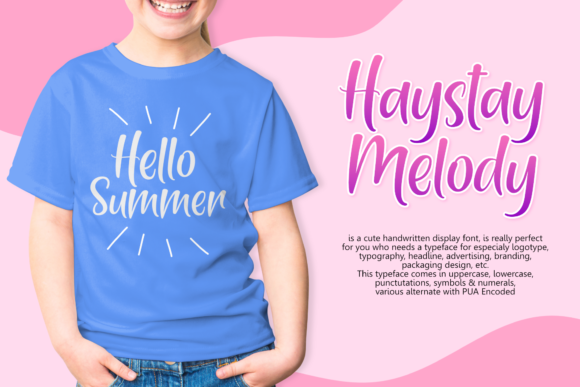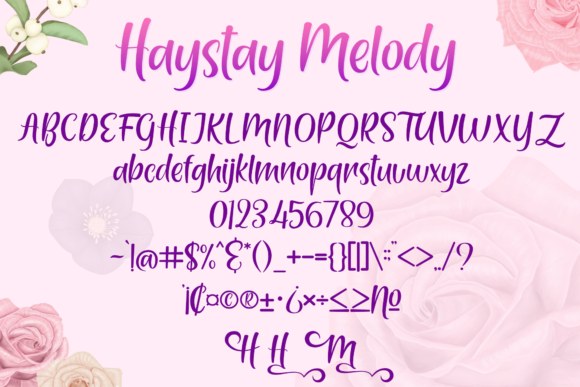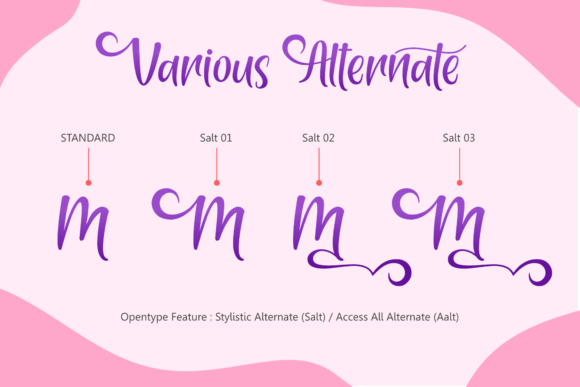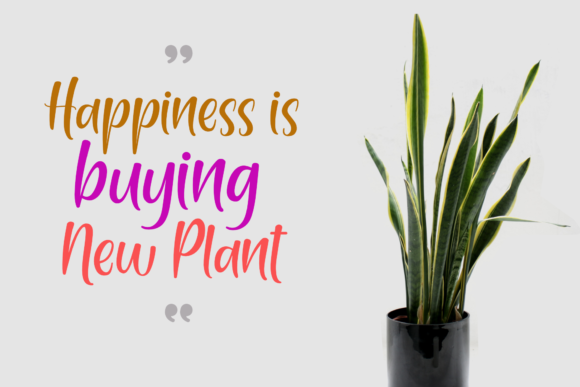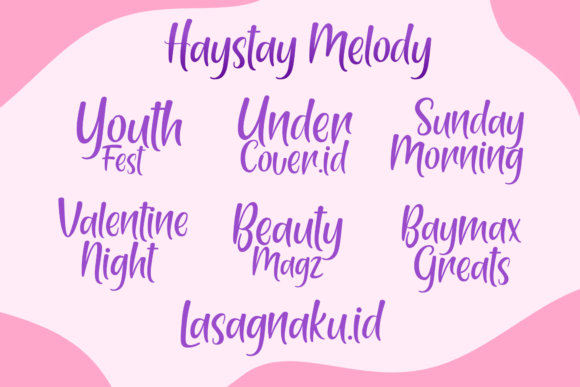
Haystay Melody Font
About Haystay Melody Font
Haystay Melody is a cute handwritten font with an incredibly friendly feel. Whether you’re looking for fonts for Instagram or calligraphy scripts for DIY projects, this font will turn any creative idea into a true piece of art!